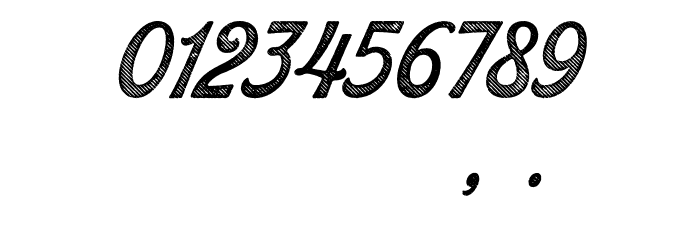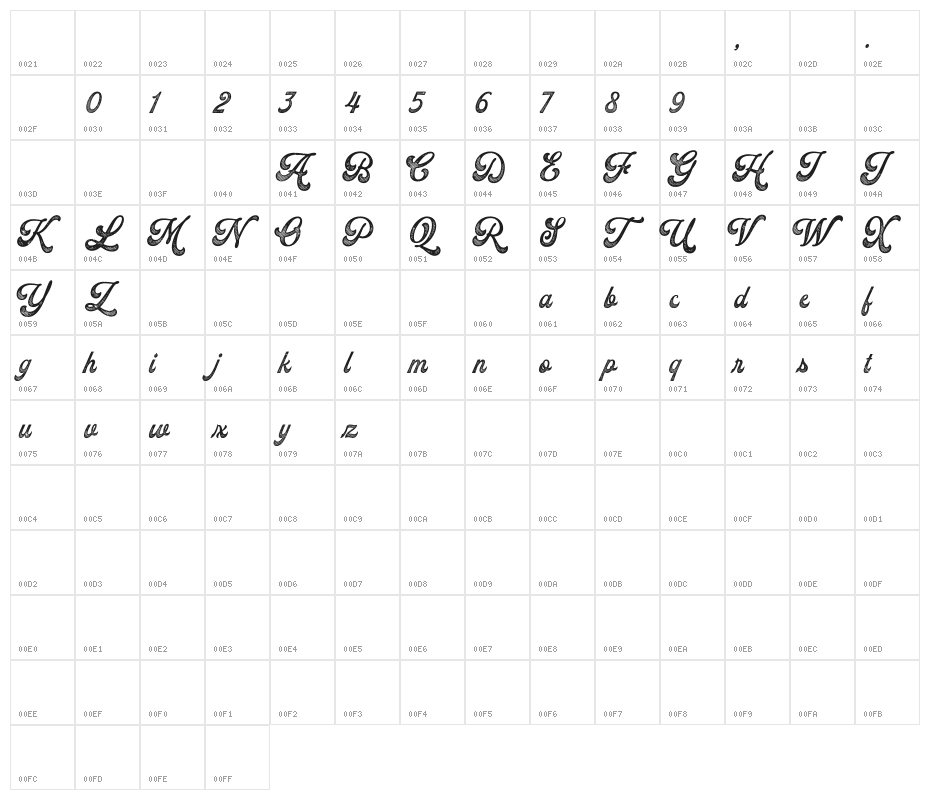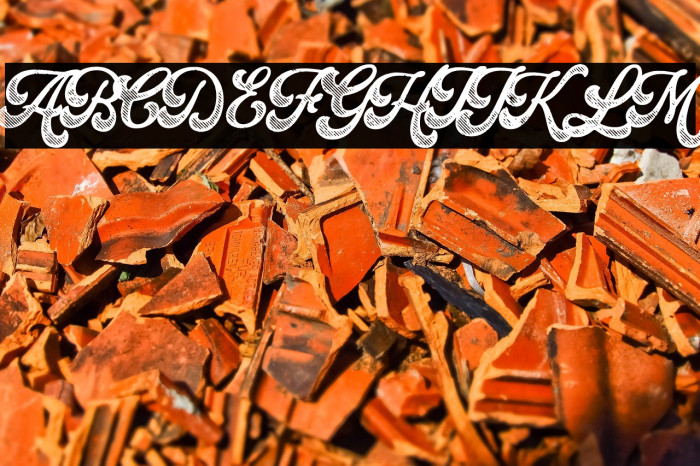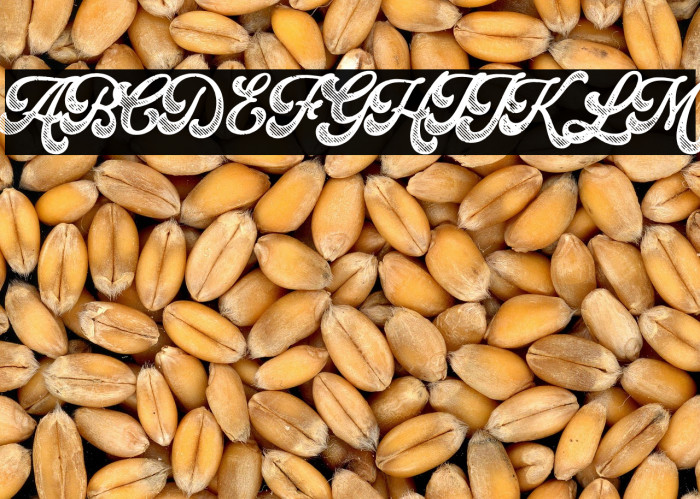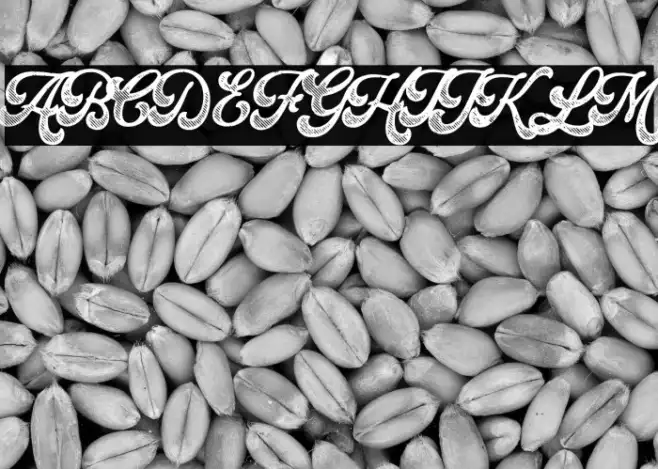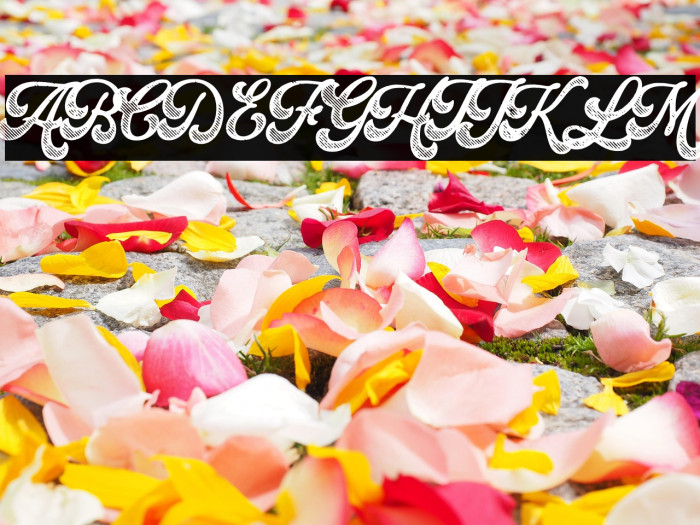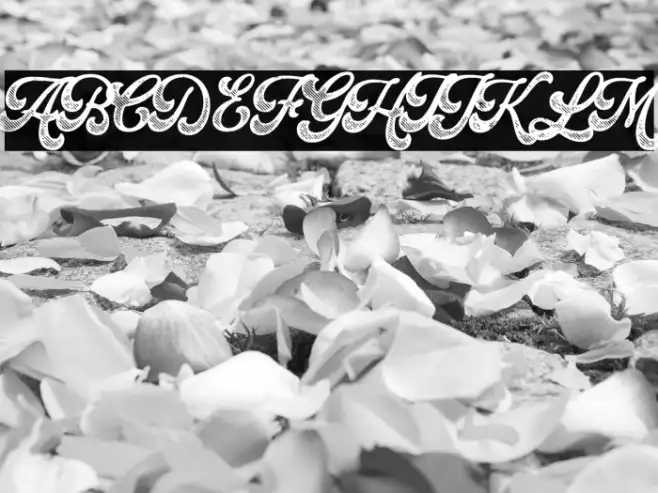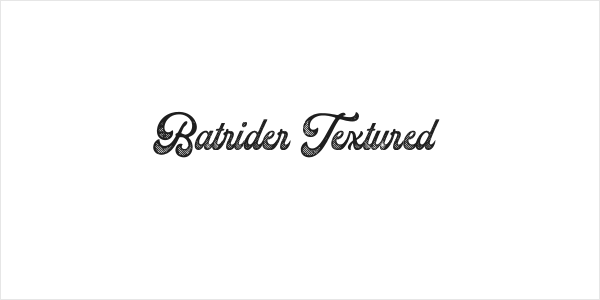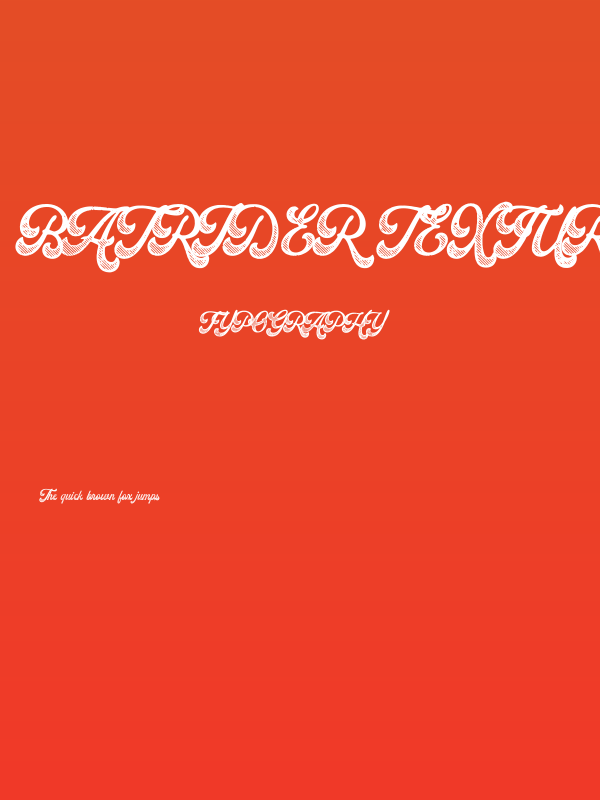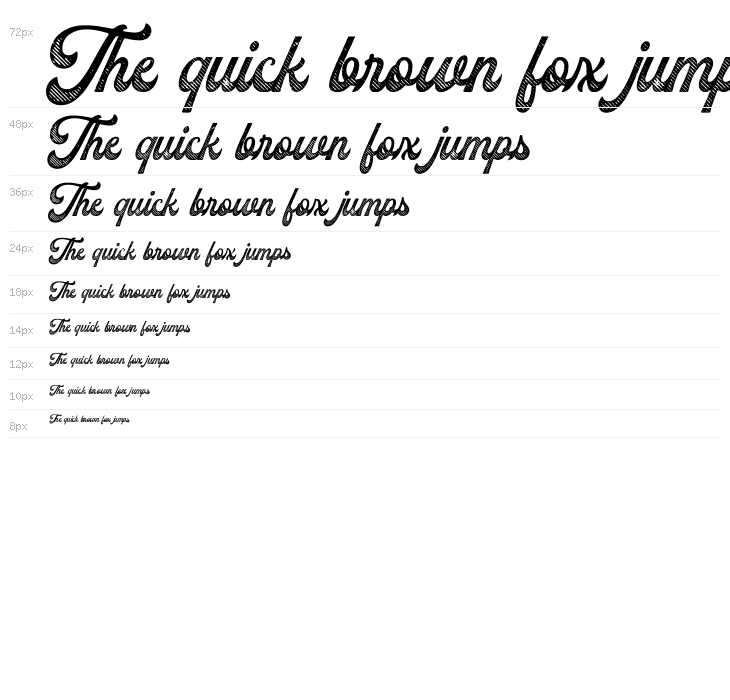
Batrider-Textured Font
Batrider-Textured Description
This font features a bold, textured script style with a distinct vintage flair. The letters are interconnected with elegant curves and loops, creating a sense of fluidity and movement. The textured pattern within each character adds depth and a handcrafted feel, reminiscent of classic sign painting or retro advertisements. The uppercase letters are ornate and slightly larger than the lowercase, which maintains a consistent flow. Numbers and special characters follow the same stylistic approach, ensuring uniformity across all glyphs. This font is ideal for projects that require a touch of nostalgia and artistic flair.